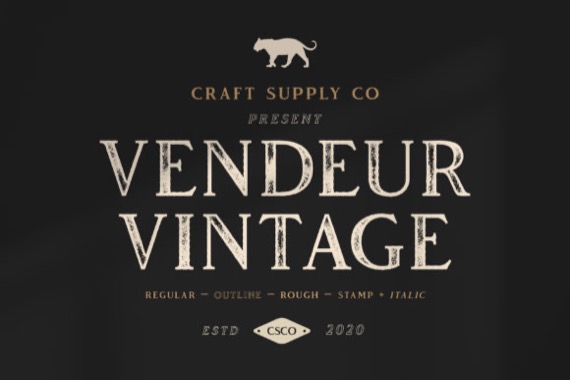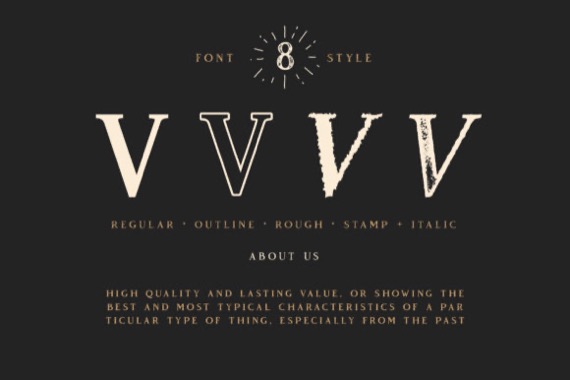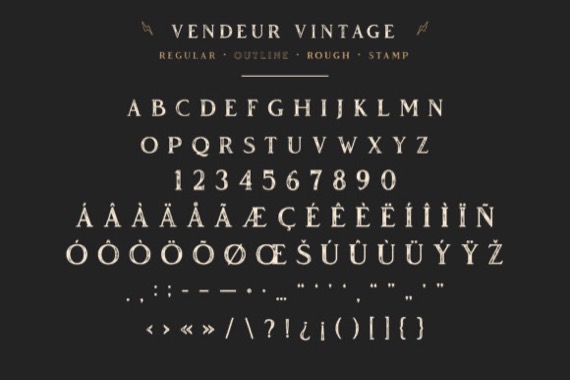
Introducing Vendeur Vintage Font from Craftsupplyco, is a unique serif with a retro serif with a distinctively nostalgic feel. Get inspired by its unique charm!
Vendeur Vintage Serif Font